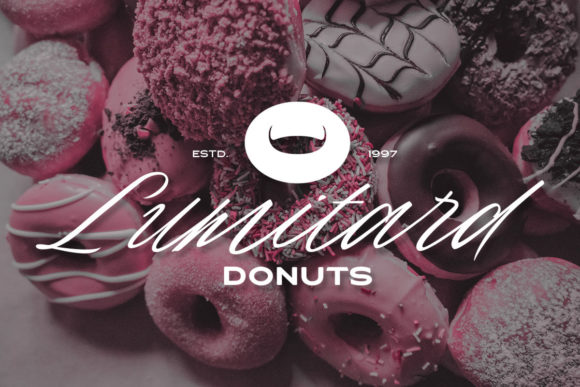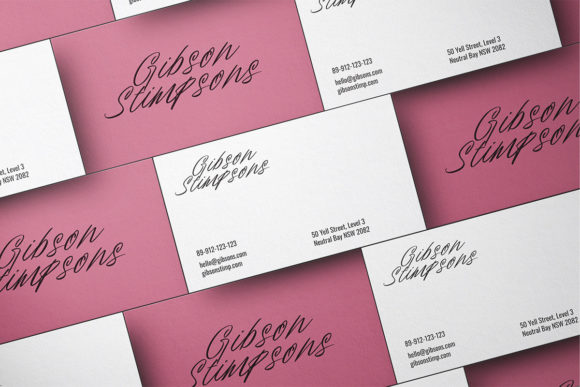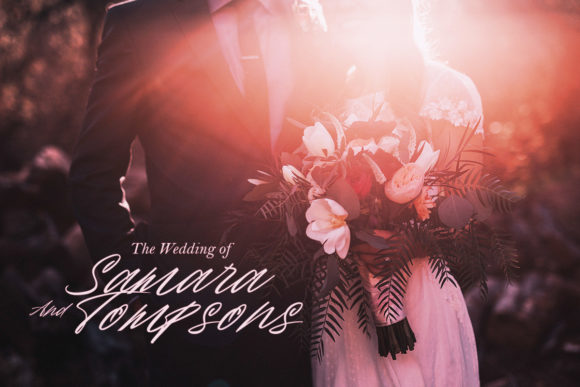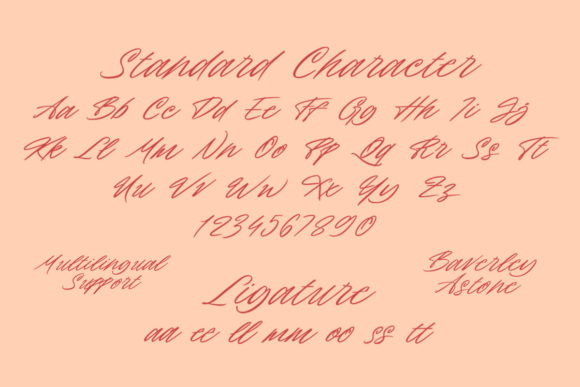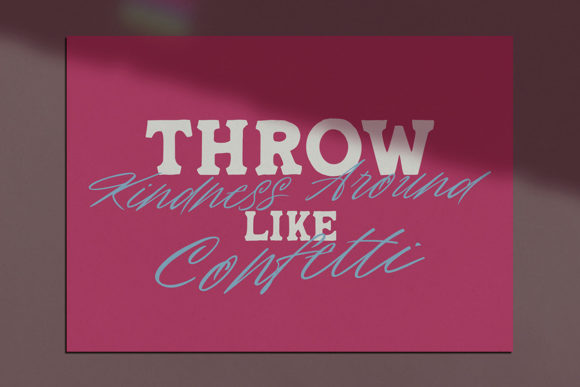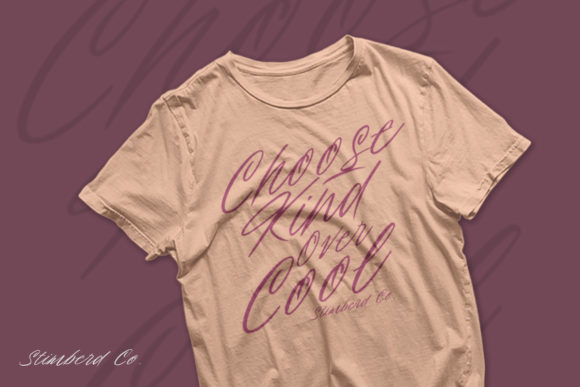
Discover the Magic of Handcrafted Typography
Remember the thrill of seeing your design come to life with a single, perfectly chosen font? For many of us, that moment is what makes all the late nights and creative struggles worth it. As designers, we’re always on the lookout for the perfect tool to elevate our work and leave a lasting impression. Enter the Baverley Astone Font – a stunning script font that’s sure to become a go-to in your font library.
This beautifully crafted font is more than just a pretty face; it’s a valuable asset for any designer looking to add a touch of elegance and sophistication to their work. Whether you’re creating a wedding invitation, a branding package, or a promotional campaign, the Baverley Astone Font has the potential to take your design to the next level.
Baverley Astone Font Key Features
- Font Family: Baverley Astone Font is a script font, designed to resemble handwritten text.
- Character Set: The font includes a wide range of characters, including uppercase and lowercase letters, numbers, and punctuation marks.
- Unique Characteristics: The font features a unique, hand-drawn design with subtle imperfections, giving it a personal and artistic feel.
Baverley Astone Font Review
As a designer, I was excited to dive into the Baverley Astone font and see what it has to offer. ✨ Here are some things that I think work well:
- The font’s unique blend of modern and vintage elements gives it a really interesting aesthetic.
- It’s great for use in titles and headings, as it’s bold and eye-catching.
- The font is highly customizable, with a wide range of styles and weights available.
However, I did encounter some limitations with the font that might make it less appealing to some designers. ⚠️ Here are a few things to consider:
- The font can be a bit difficult to read in smaller sizes, which might make it less suitable for body text.
- The font’s bold styles can be a bit overwhelming, so it’s best to use them sparingly.
- The font’s vintage elements can make it feel a bit dated, especially when used in modern designs.
Overall, I think the Baverley Astone font is a solid choice for designers looking to add some visual interest to their work. While it may not be perfect, its unique aesthetic and high level of customization make it a great option for titles, headings, and other design elements where a bold, eye-catching font is needed.
Baverley Astone font is ideal for creating elegant and sophisticated designs, such as:
- Book covers and literary designs
- Special event invitations and announcements
Tips for Getting the Most Out of Baverley Astone
To get the most out of Baverley Astone font, use it in conjunction with other elegant and sophisticated design elements, such as:
- Classic illustrations and graphics
- High-quality images and textures
- Simple and clean backgrounds